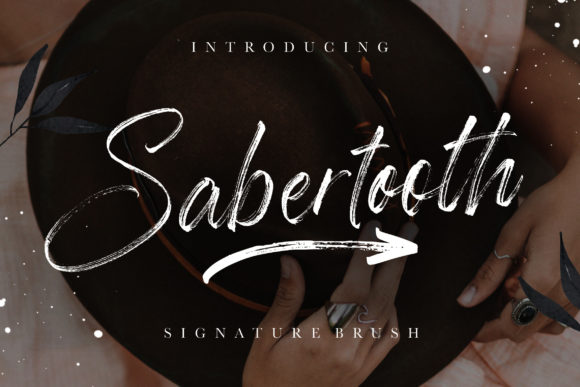
About Sabertooth Font
Sabertooth is an exquisite handwritten font, masterfully designed to become a true favorite. It maintains its classy calligraphic influences while feeling contemporary and fresh. Fall in love with it and bring your projects to the highest levels!